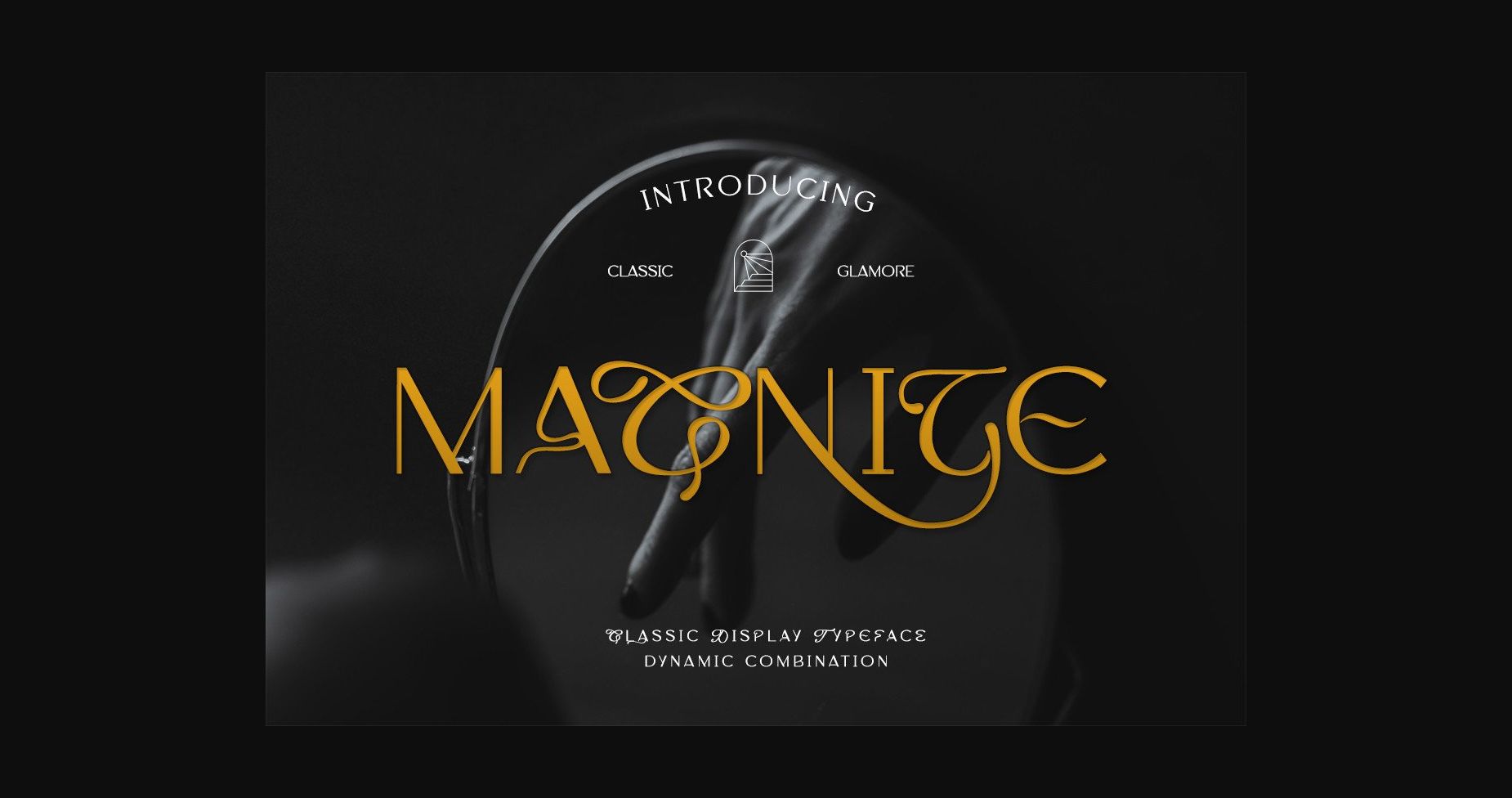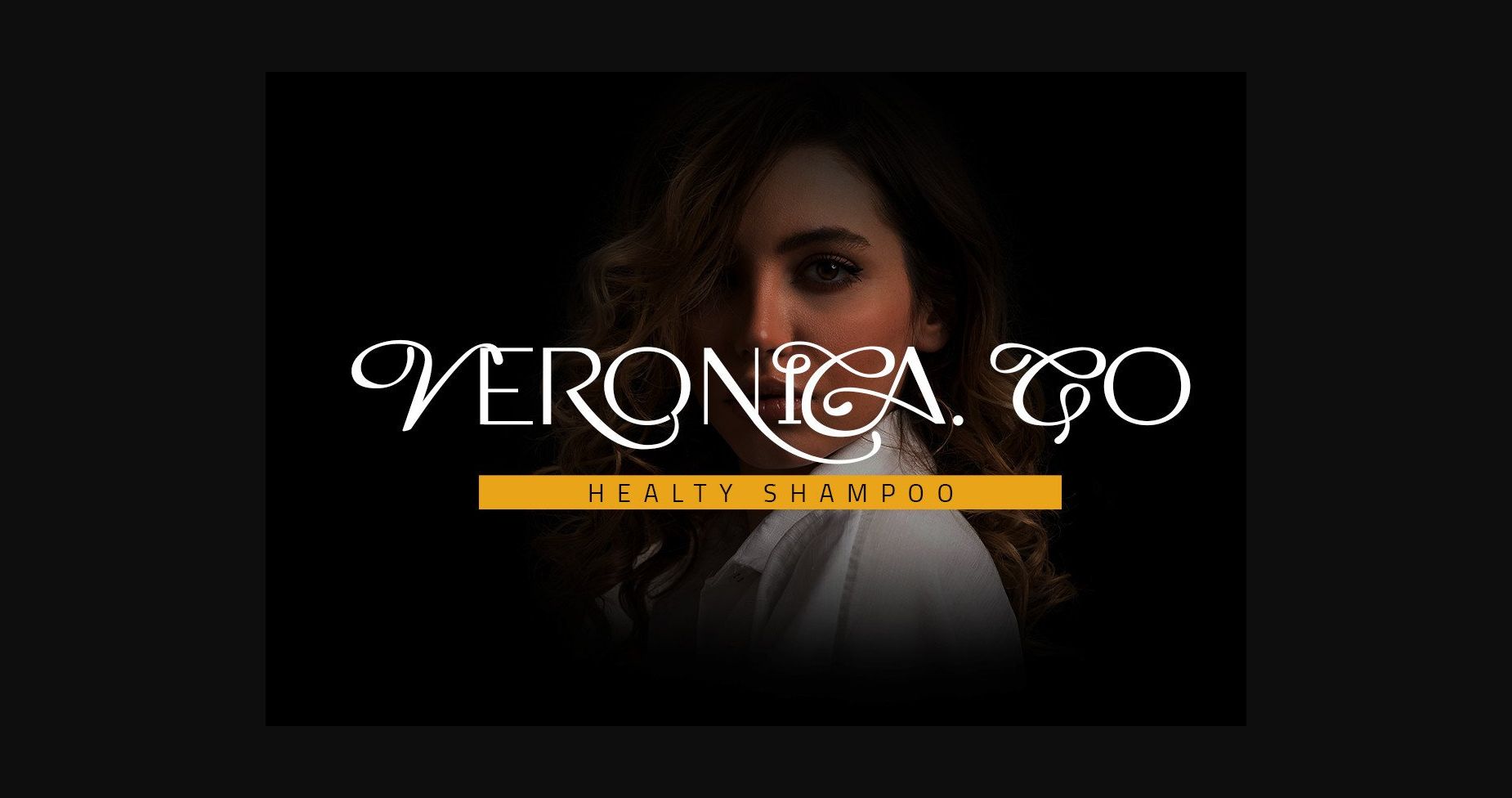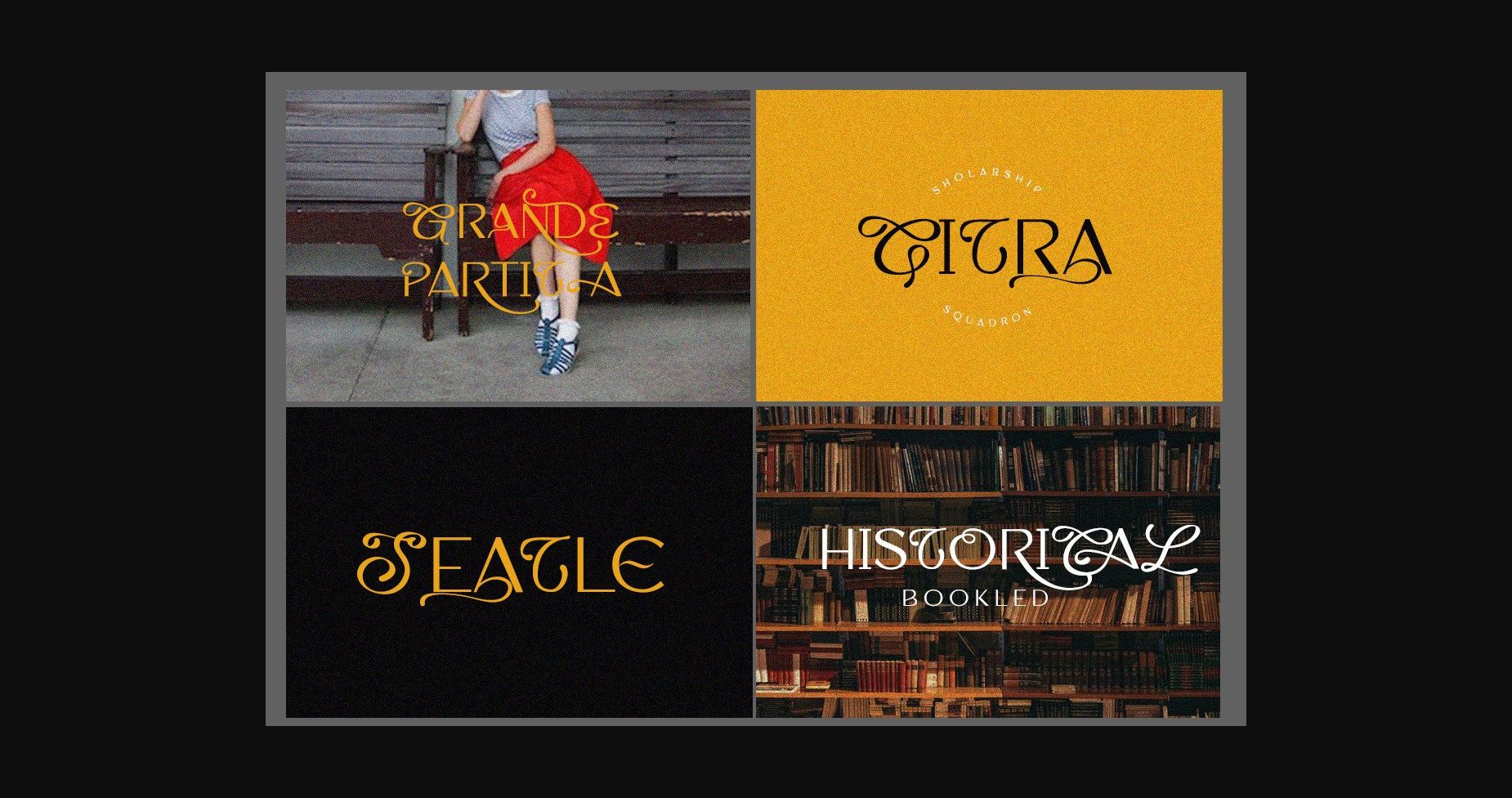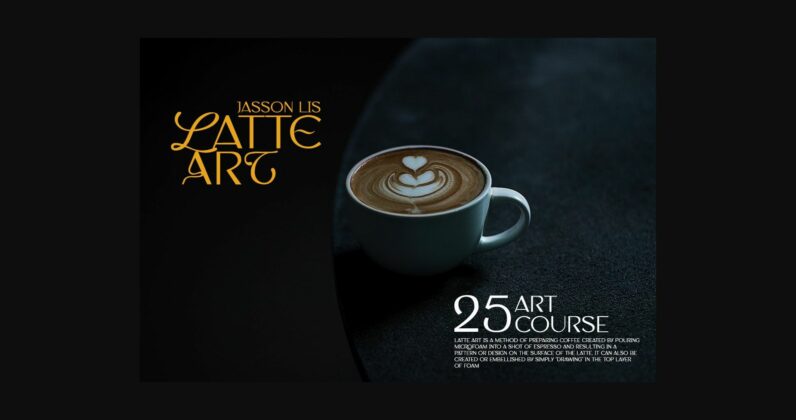
About Macnite Font
Introducing Macnite: A multi-faceted sans serif typeface. It is an elegant and minimal sans serif typeface with ligature-rich headline characters and a hybrid mix of serif and script letters.
The hybrid personality of Macnite mixes script letters among serif – script letters can be inserted anywhere in the word to create unique logos and display titles, contained as stylistic alternates in the main font or easily accessed via uppercase in the hybrid font.
There’s beauty in the plain version of Macnite, even without all the extras, for a clean and elegant minimal sans serif. Any version of Macnite brings a touch of luxury and bespoke custom typography to modern logos, websites, social media quotes, wedding branding, and more.
The hybrid personality of Macnite mixes script letters among serif – script letters can be inserted anywhere in the word to create unique logos and display titles, contained as stylistic alternates in the main font or easily accessed via uppercase in the hybrid font.
There’s beauty in the plain version of Macnite, even without all the extras, for a clean and elegant minimal sans serif. Any version of Macnite brings a touch of luxury and bespoke custom typography to modern logos, websites, social media quotes, wedding branding, and more.